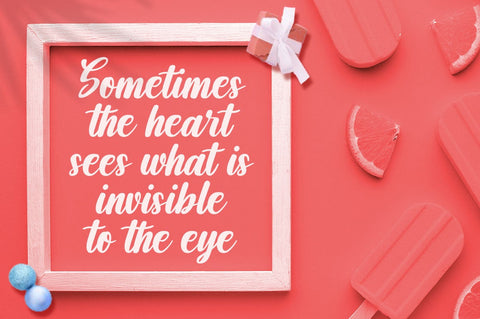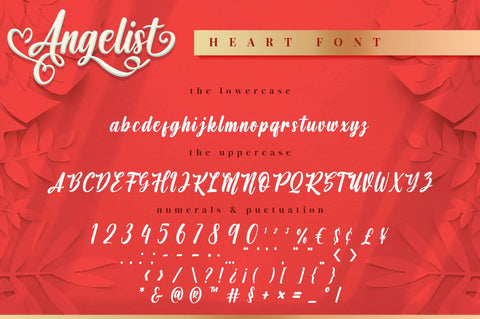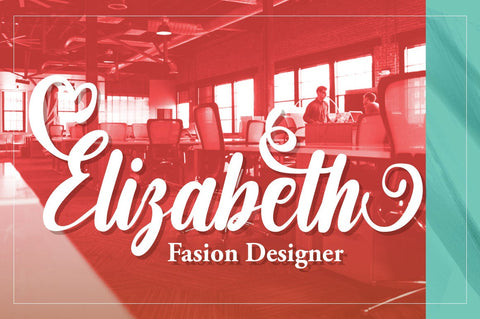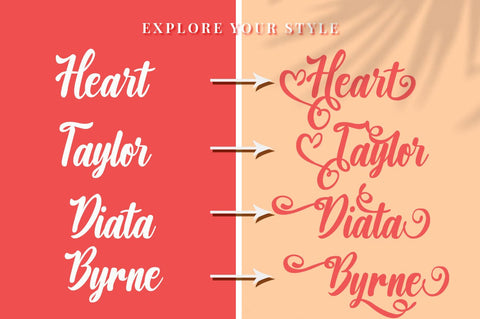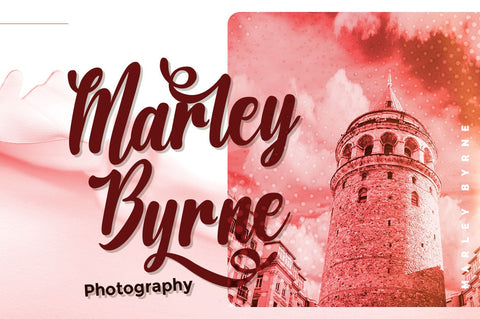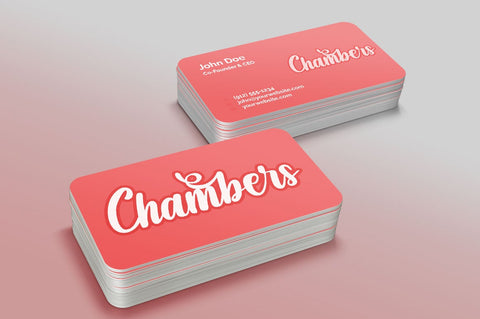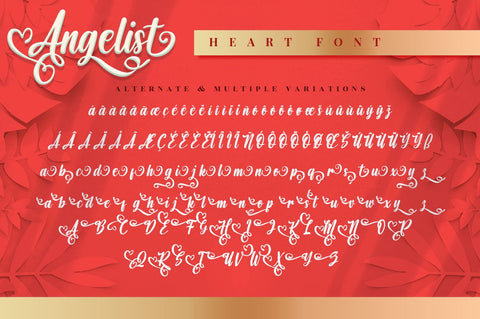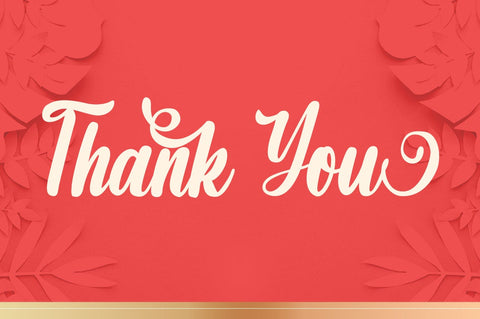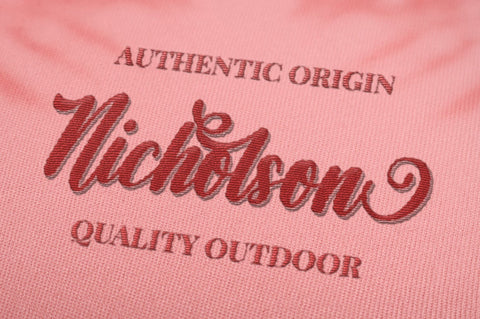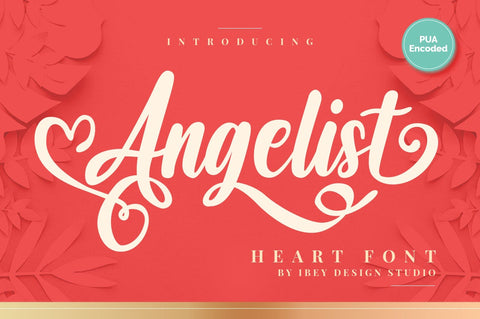
Angelist - Heart Font
Angelist Heart Font that inspires friendliness and elegance. It is perfect to use for any of your wonderful creations such as branding projects, logos, brochures, business cards, wedding invitations, and many others!
Angelist Heart Font is PUA encoded which means you can access all of the glyphs and swashes with ease!